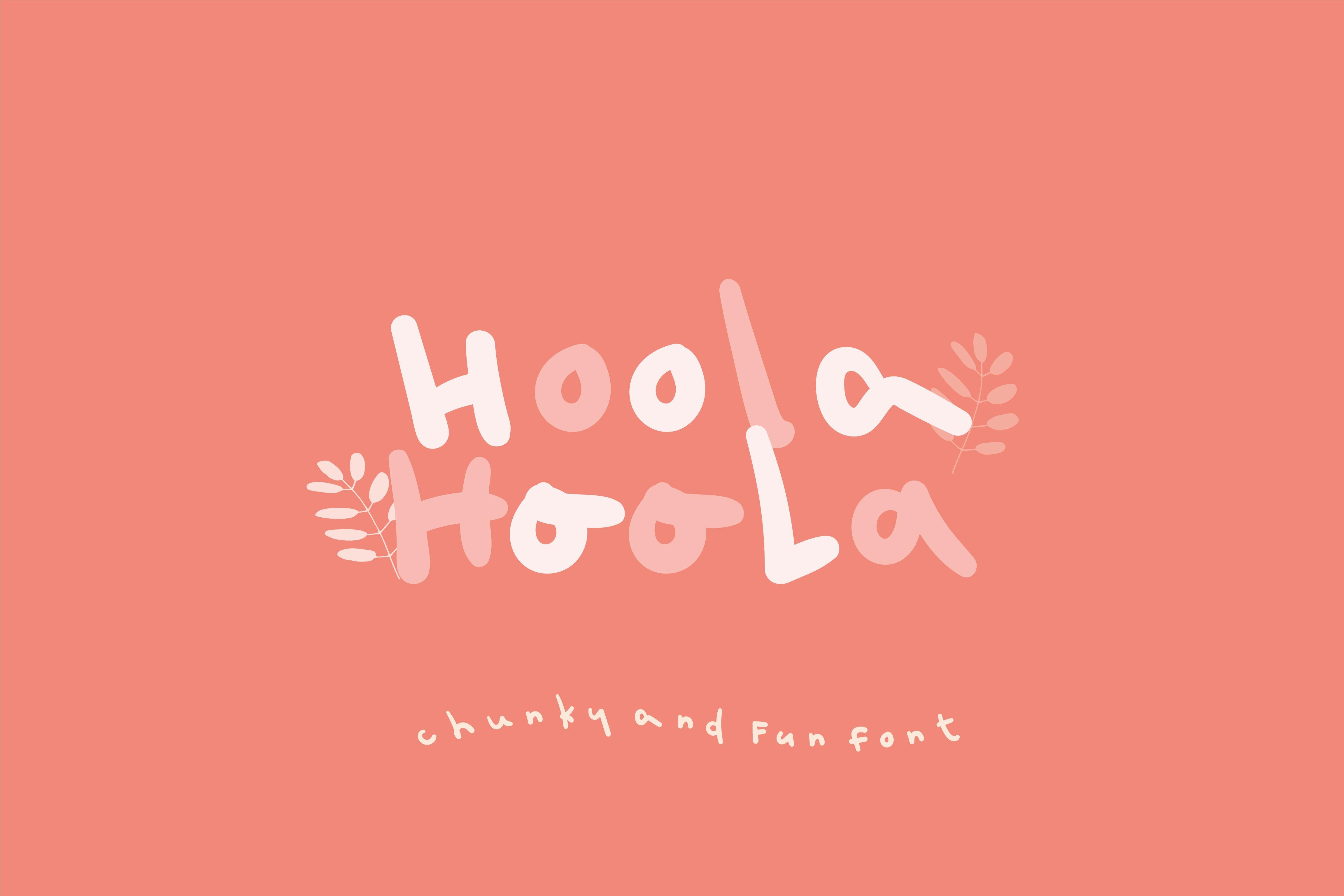
Hoola Font Description
Hoola is an uneven, playful,chunky lettered and fun handwritten font. It can easily put a smile on your projects and will inspire you to create something joyful and memorable. It is suitable for any branding, product packaging, invitation, magazine, t-shirt, label, poster, or logo that you wish to develop.